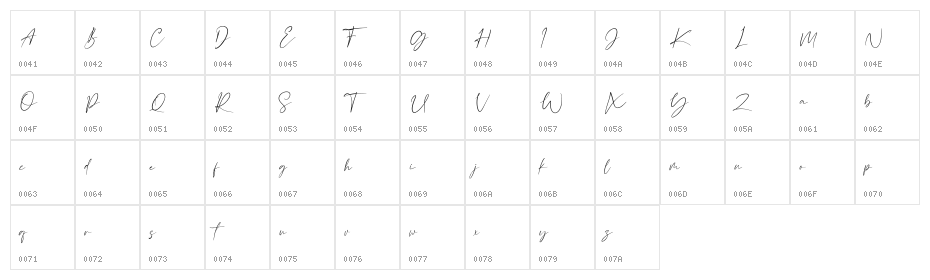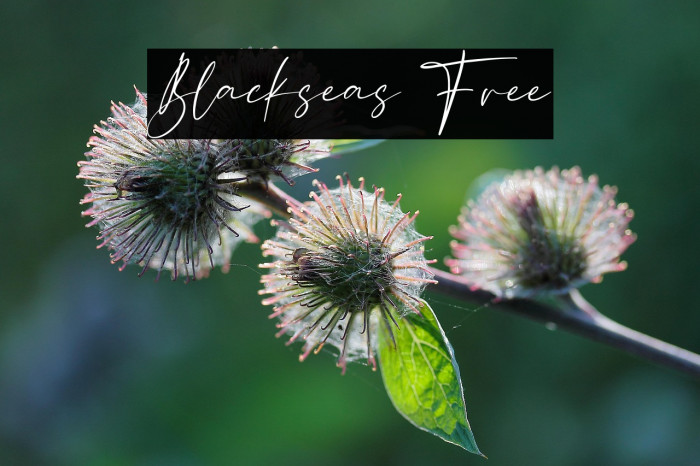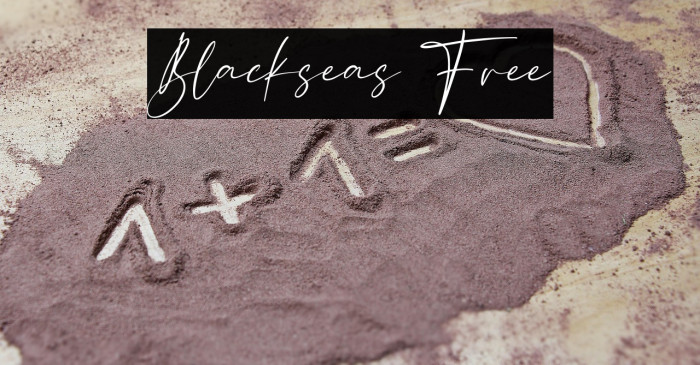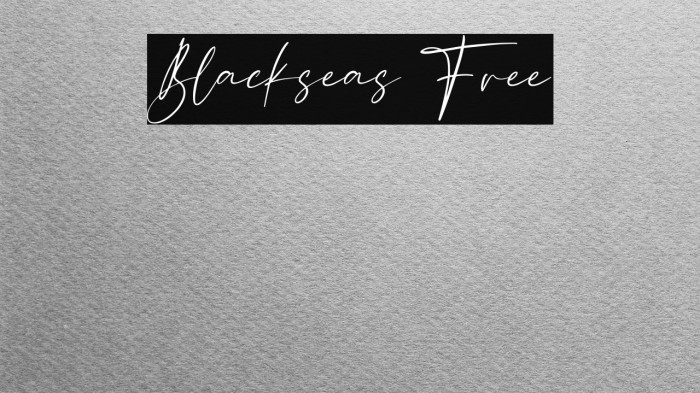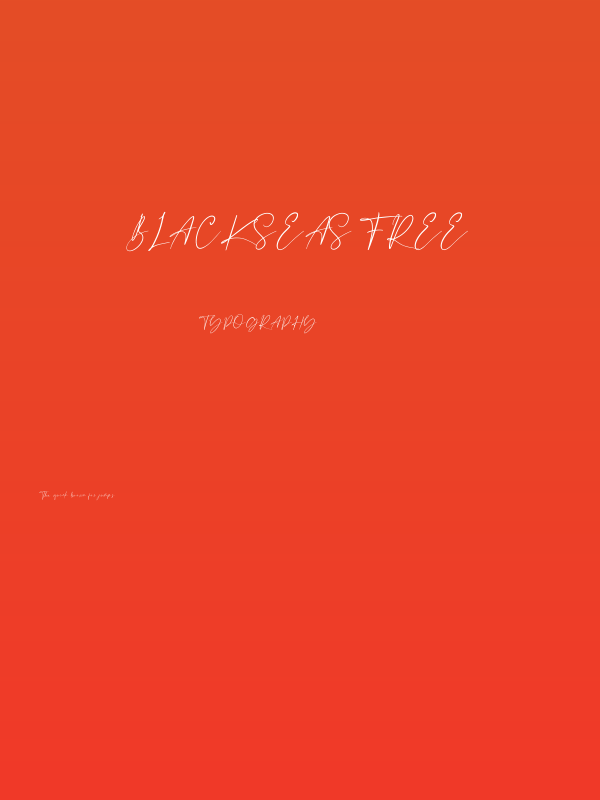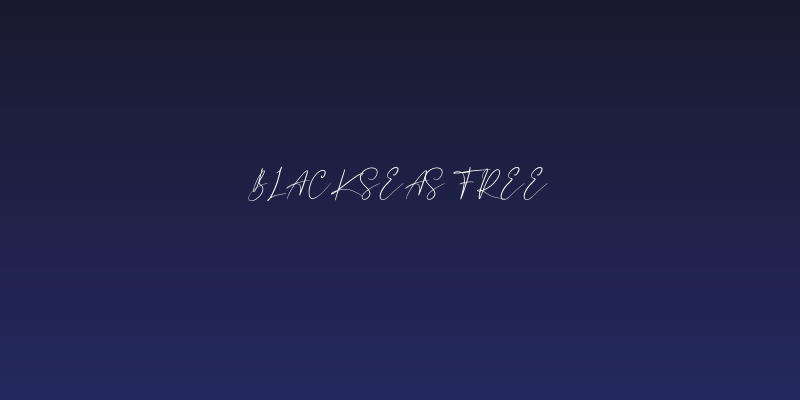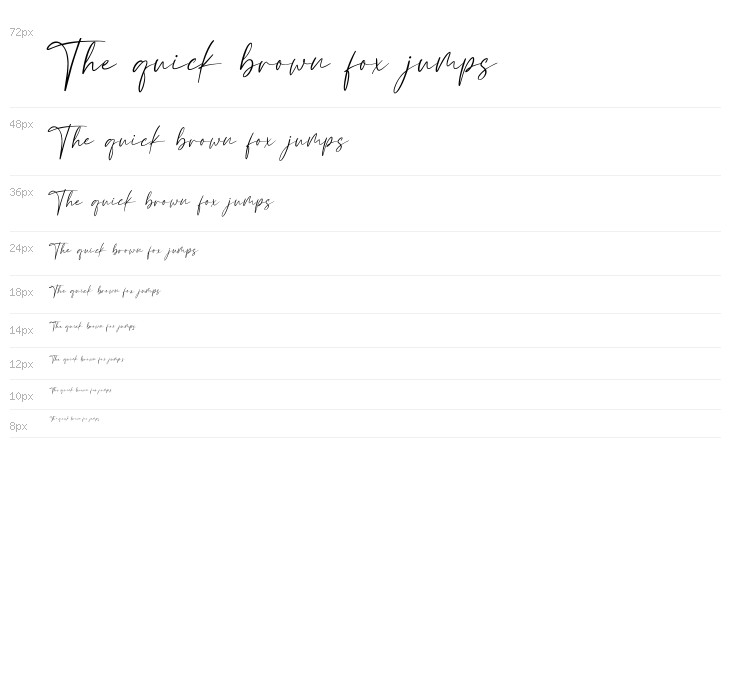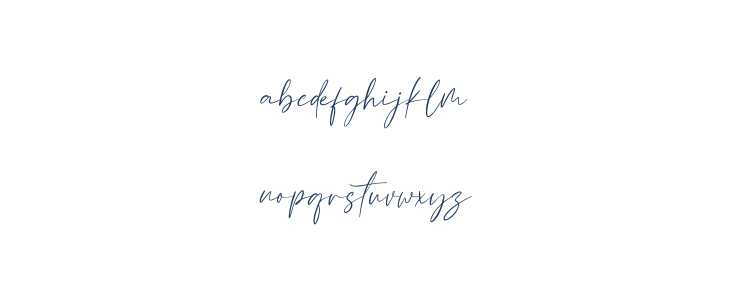
Blackseas Free Font
Blackseas Free Description
This font exudes an elegant and flowing script style, characterized by its graceful, cursive letterforms. The strokes are thin and delicate, with a consistent fluidity that mimics natural handwriting. Each character is crafted with a sense of movement, creating a dynamic and lively appearance. The uppercase letters are slightly more ornate, while the lowercase letters maintain a smooth and cohesive look. This font is perfect for adding a personal touch to any design, offering a sophisticated yet approachable aesthetic.
| Use Case | Logos, Invitations, Personal branding |
| Proposed Projects | Ideal for wedding invitations, greeting cards, personal branding, and elegant logo designs. |